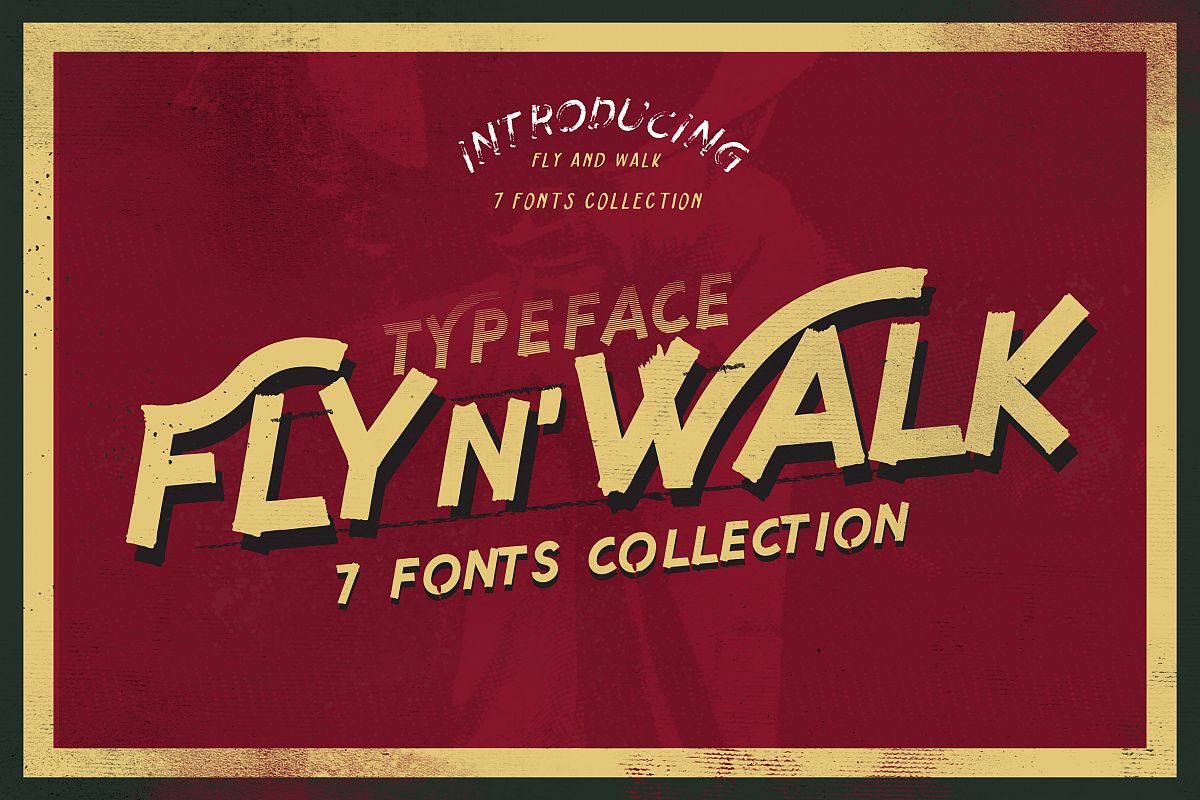
Fly and Walk Typeface
Fly & Hand Italic
Fly & Hand
Fly and Walk Eroded
Fly and Walk Lines
Fly and Walk Shadow
Fly and Walk Straight
Fly and Walk
Fly and Walk Typeface With a solid facewhich looks great in your social media present, logo and branding or other creative fun projects, even you can easily costumize the set as your style.
Use for awesome display, labeling, clothing, movie sceen, poster, movie title, gigs, album covers, logos, and much more.
A hand-made sans serif (All caps) inspired from vintage motorcycle custom culture.
Font has 7 styles and it is ideal for retro and vintage projects, from clear designs to rough look designs.